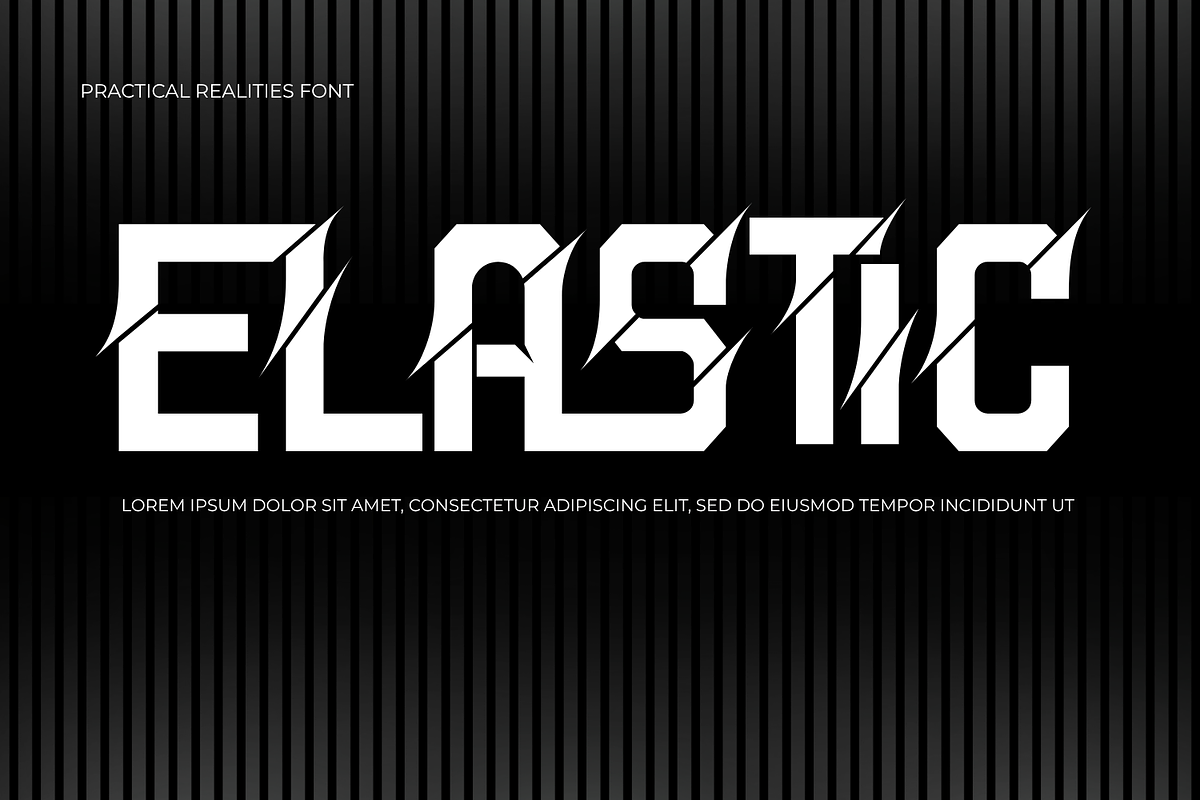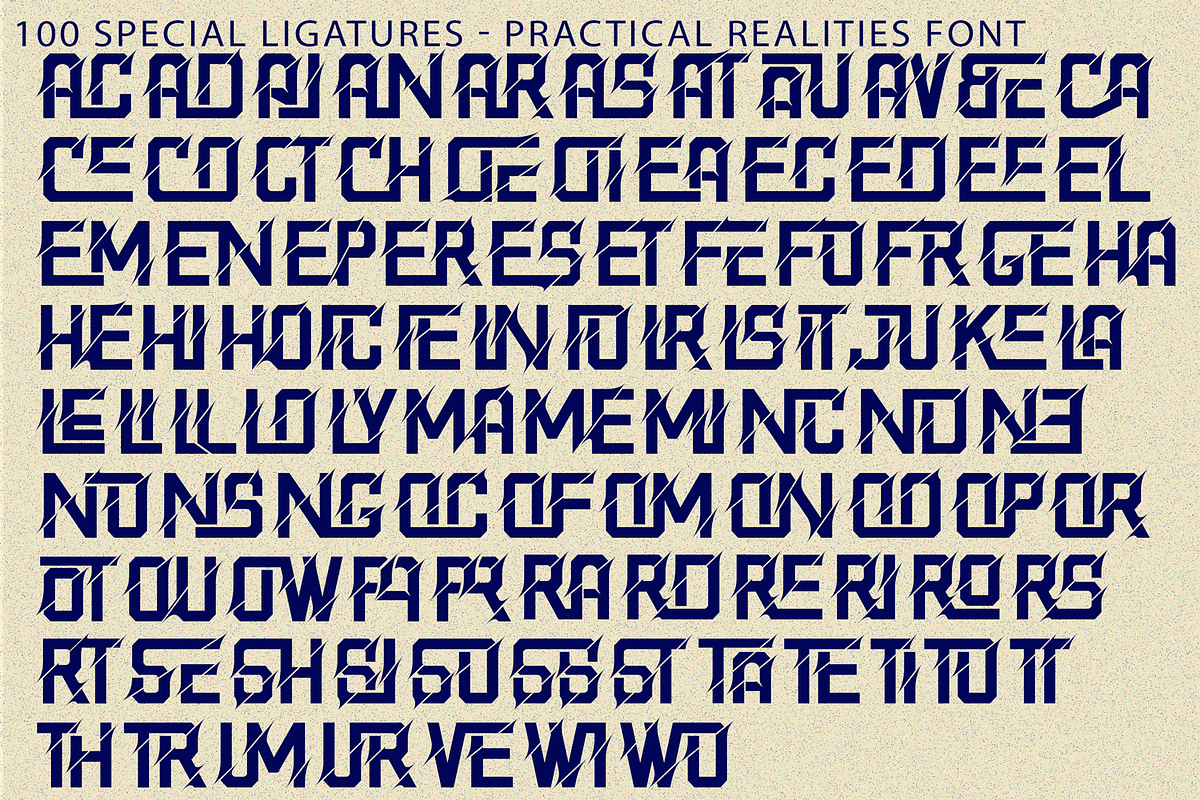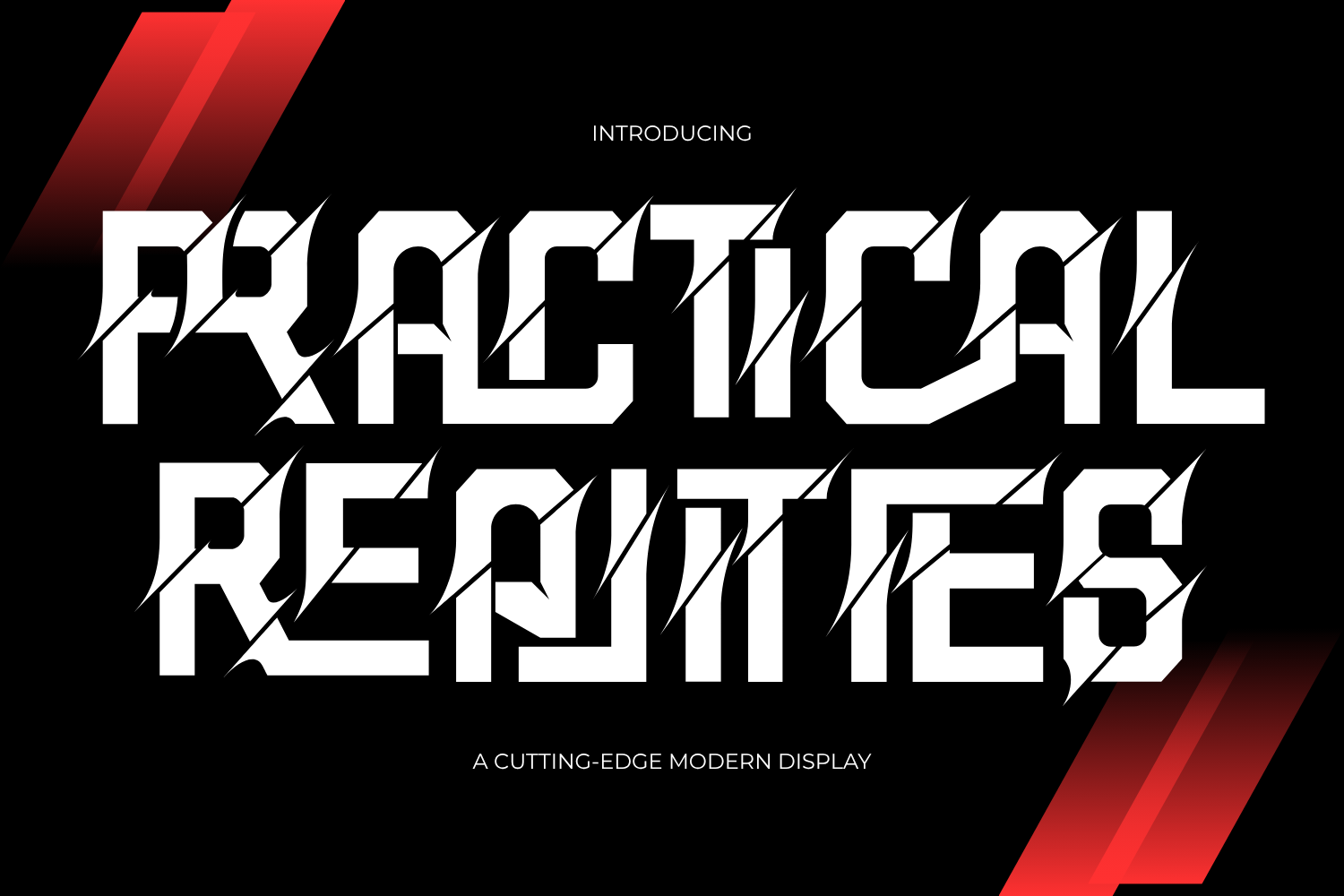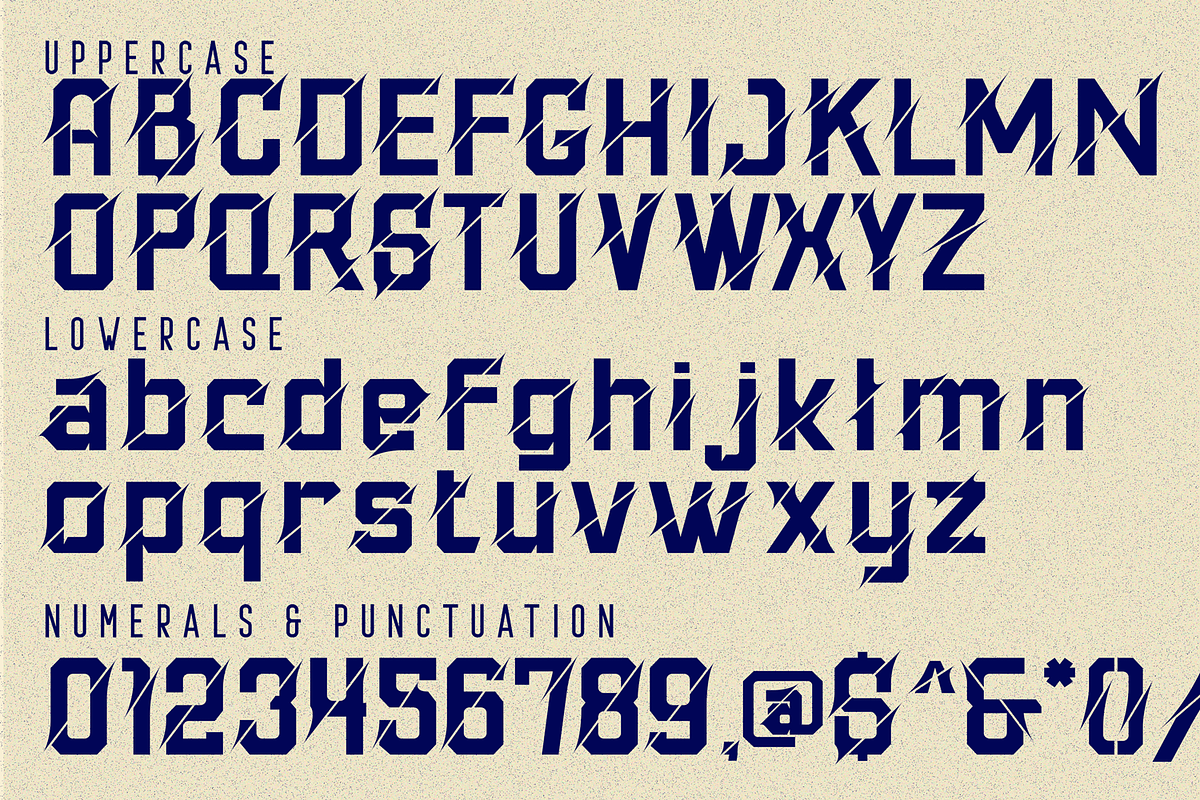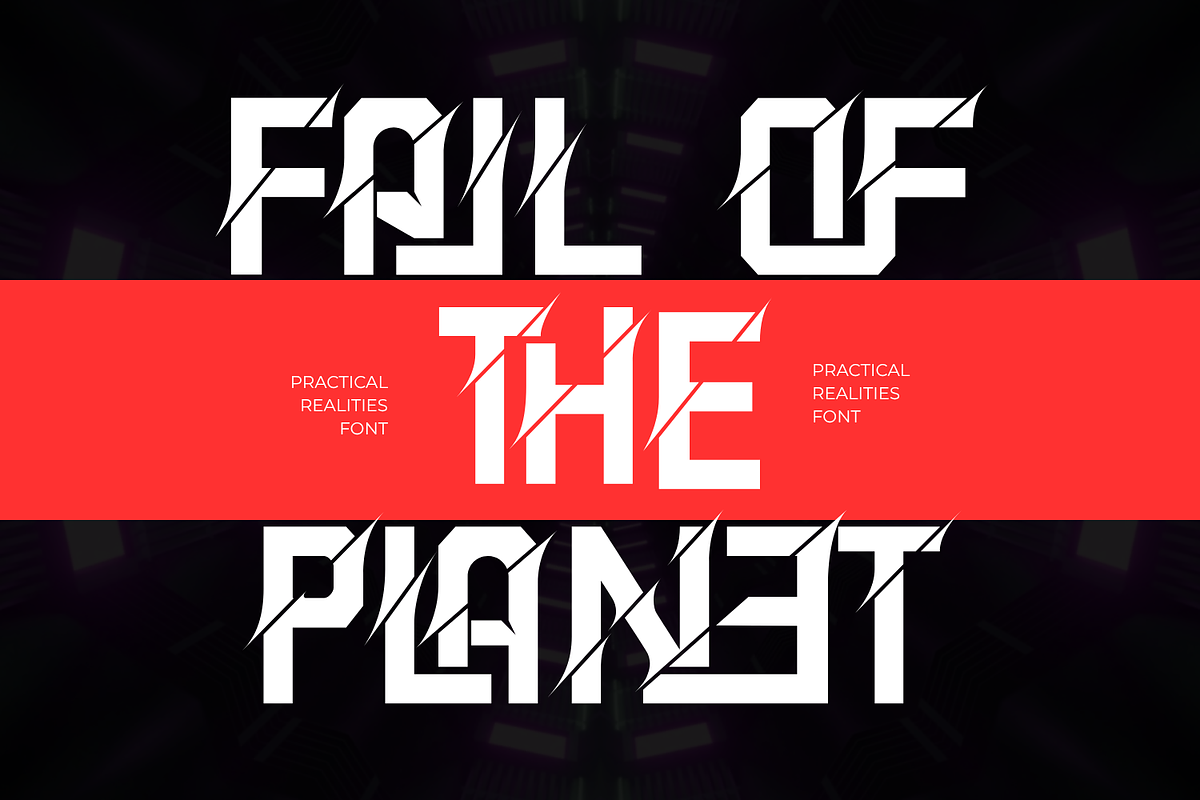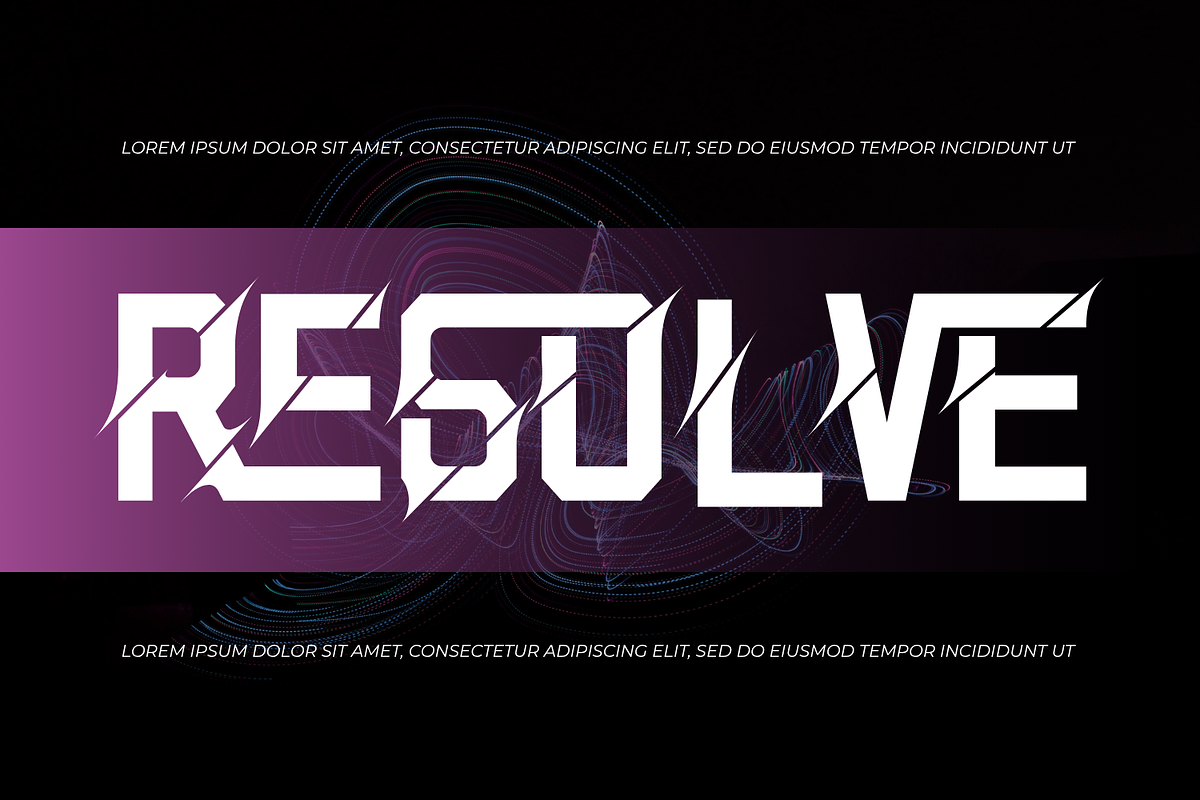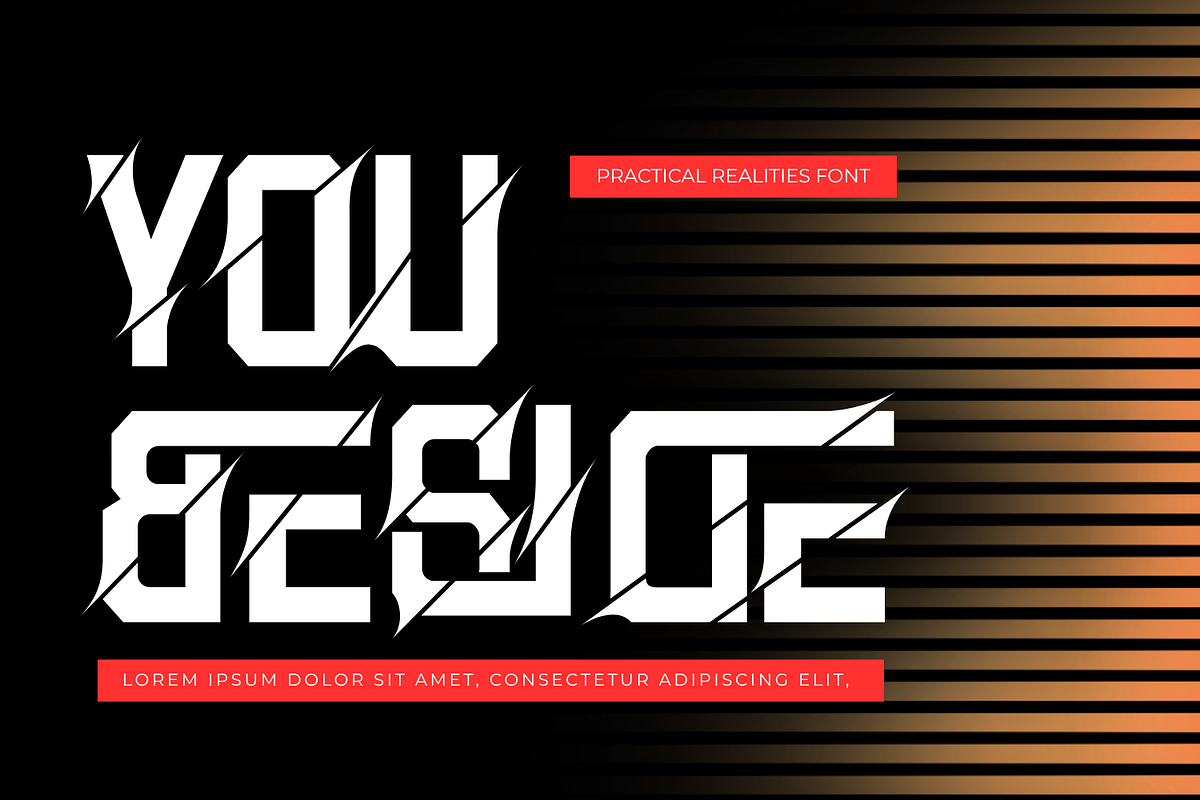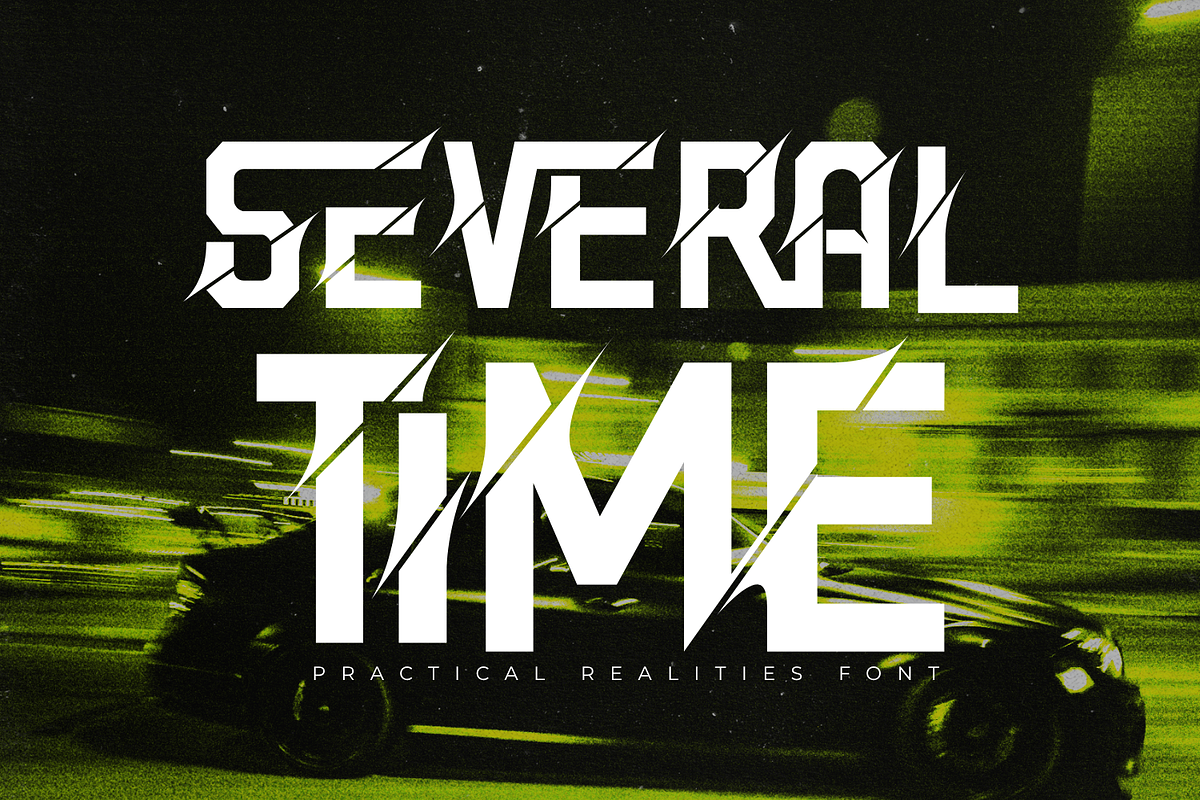
PRACTICAL REALITIES - CYBERPUNK FONT
PRACTICAL REALITIES - CYBERPUNK FONT is a bold futuristic display font engineered for high-impact visual communication. Featuring powerful geometric letterforms, sharp angular construction, and distinctive slash-cut details, this typeface creates a dynamic sense of speed, energy, and technological innovation. Every character is carefully crafted to deliver a strong and aggressive appearance while maintaining excellent readability and visual balance.
Inspired by cyberpunk culture, esports branding, sci-fi technology, and modern industrial design, PRACTICAL REALITIES is perfect for gaming logos, esports teams, futuristic branding, movie posters, action titles, automotive graphics, technology startups, sports apparel, digital products, album covers, and high-energy promotional materials. Its striking letterforms and razor-sharp details make it an ideal choice for designers looking to create bold, futuristic, and unforgettable visual identities that demand attention.
🔤Features:
Uppercase & Lowercase Letters
Around 100 Special Ligatures & Alternates
Accented Characters for multilingual support
🔤About 100 ligatures combined with Stylistic Alternates Font:
AC AD AL AN AR AS AT AU AV BE CA CE CH CO CT DE DI EA EC ED EE EL EM EN EP ER ES ET FE FO FR GE HA HE HI HO IE IC IL IN IO IR IS IT JU KE LA LE LI LL LO LY MA ME MI NC ND NE NG NO NT NS OC OF OM ON OO OP OR OT OU OW PA PR RA RD RE RI RO RS RT SE SH SI SO SS ST TA TE TH TI TO TR TT UM UN UR VE WI WO